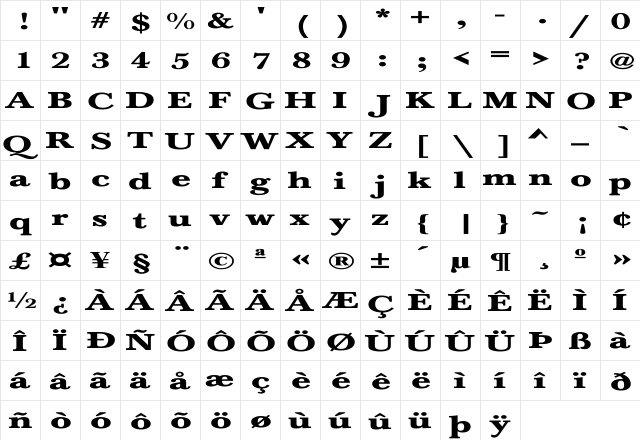
NewBaskerville-Bold Ex Regular
Design Context for NewBaskerville-Bold Ex Typeface
NewBaskerville-Bold Ex is a composed and adaptable typeface that performs quietly and consistently across a wide range of design contexts. Its bold stroke weight gives it real presence on the page.